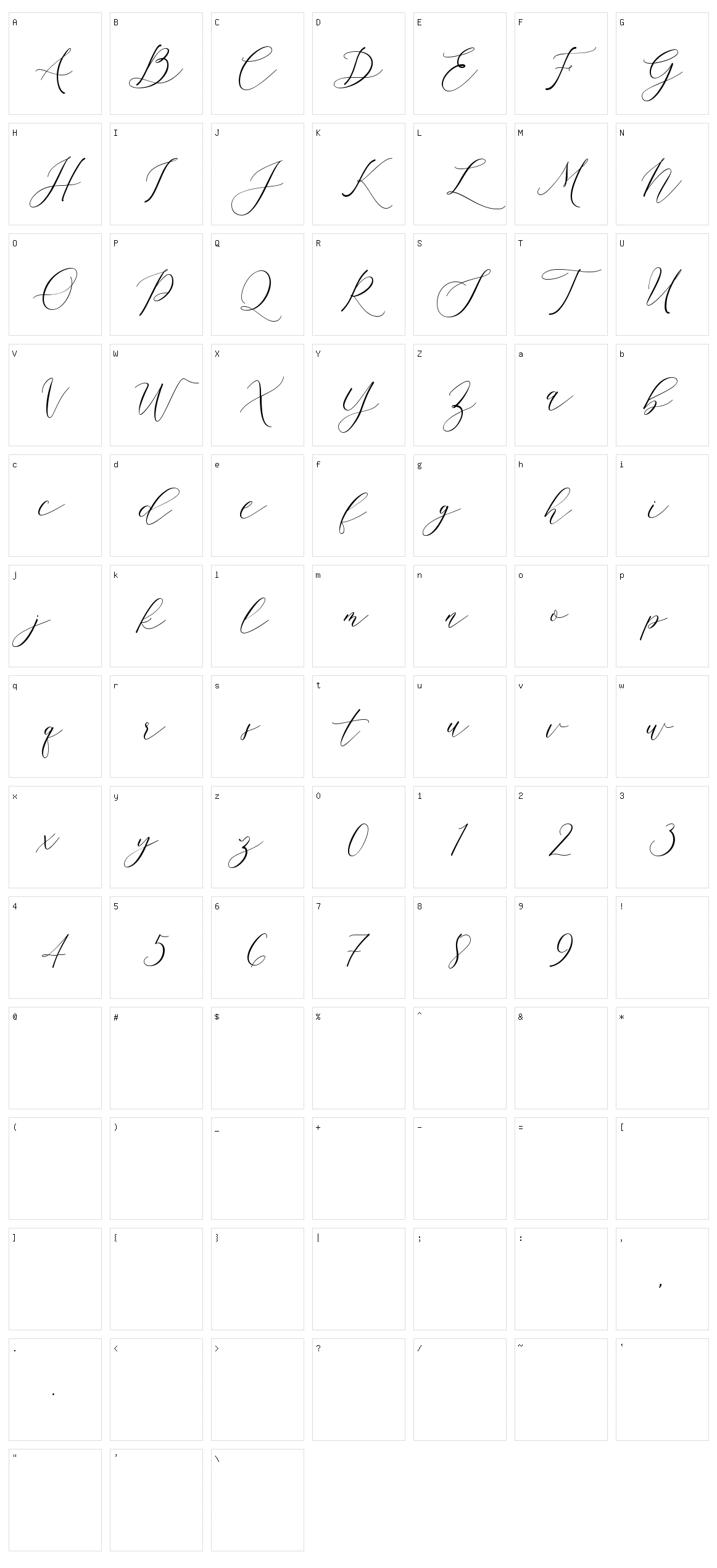
The free font Larosa is carefully designed by Letteratom, showcasing a thoughtful balance of creativity and usability and falls under the Script font style. When you download the ZIP file, it contains only 23.21 KB of font files, making it lightweight and quick to download. Please review the license details below to understand permitted usage and distribution rights. If license information is not available, we recommend using this font for personal projects only or contacting the author directly for commercial usage permissions.